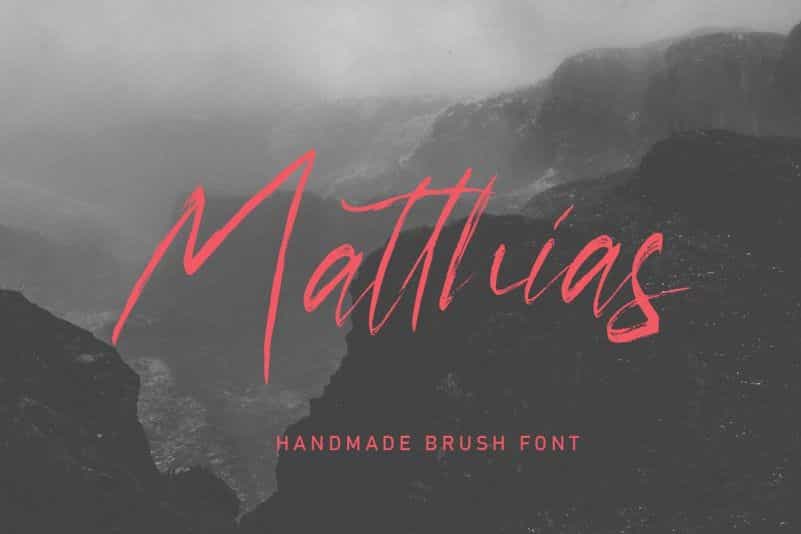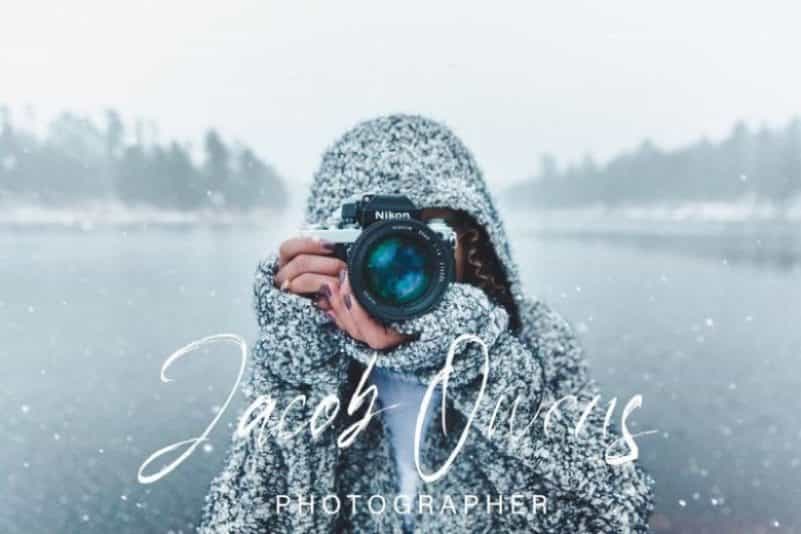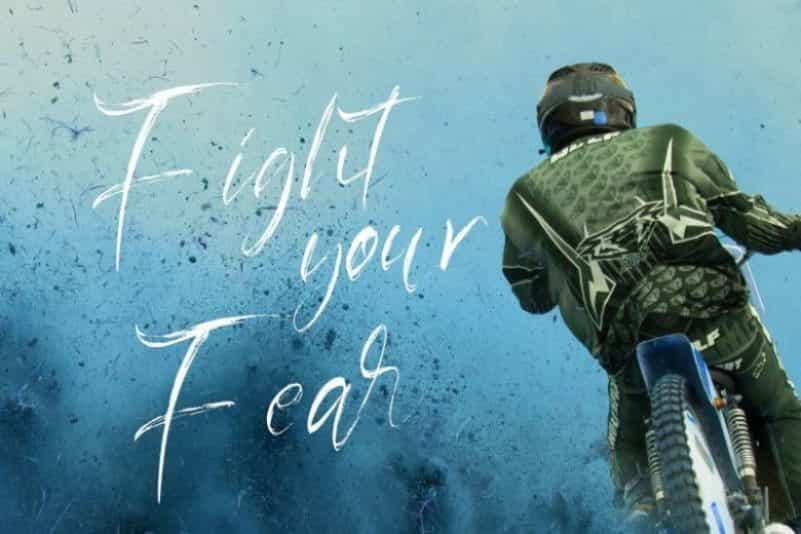
Matthias is a typeface that appeared to have been written by hand in a very realistic manner. Every character had to smoothly transition into the next and the thickness had to be balanced between being too complex and being easily readable.